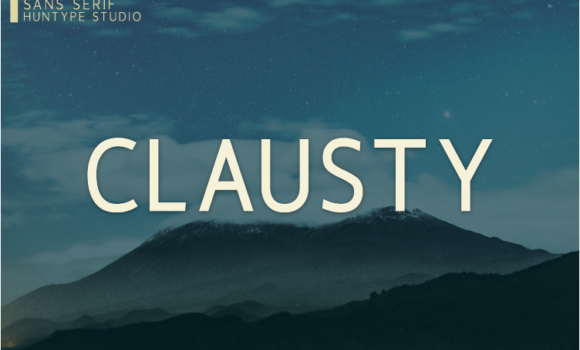
clausty
Clausty Font – Free Download Introduction to Clausty Font Clausty is a minimal and neat sans serif font. 📸 Preview Gallery 2 images 📌 Product Name Clausty Font 👤 Author Huntype 📂 Category Explore ⬇️ Download Clausty Font FREE Free